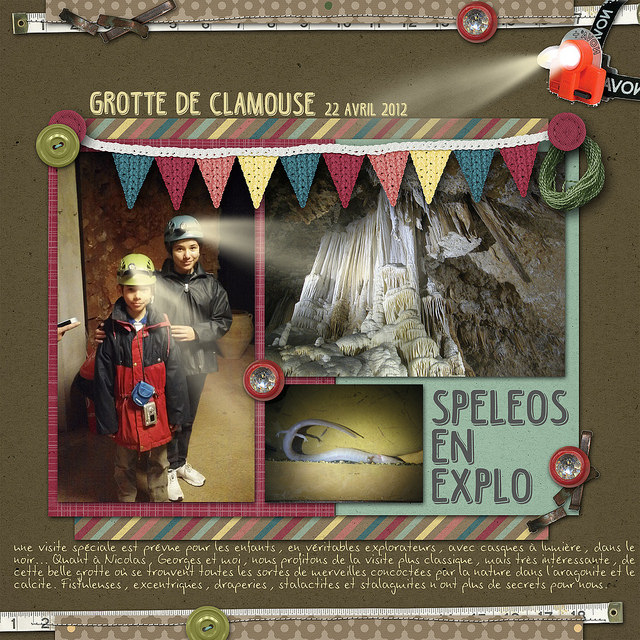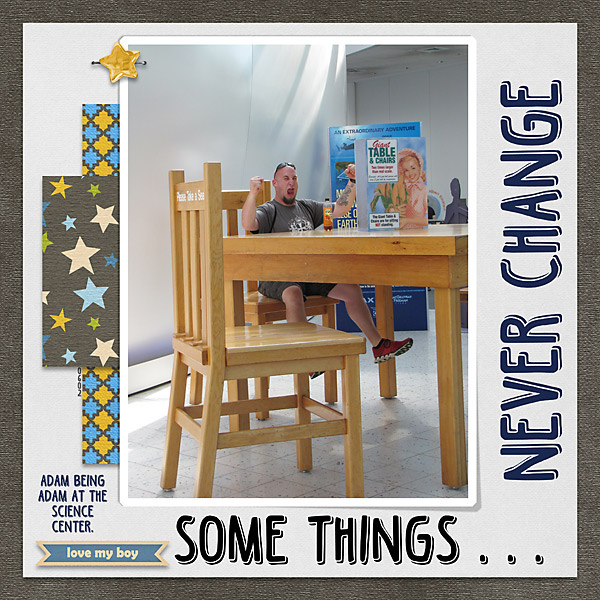
36. Black Coffee
This font was just screaming to be used for all those coffee lovers and all those who need a unique font for a title (link)
Here are your digital scrapbooking layouts!